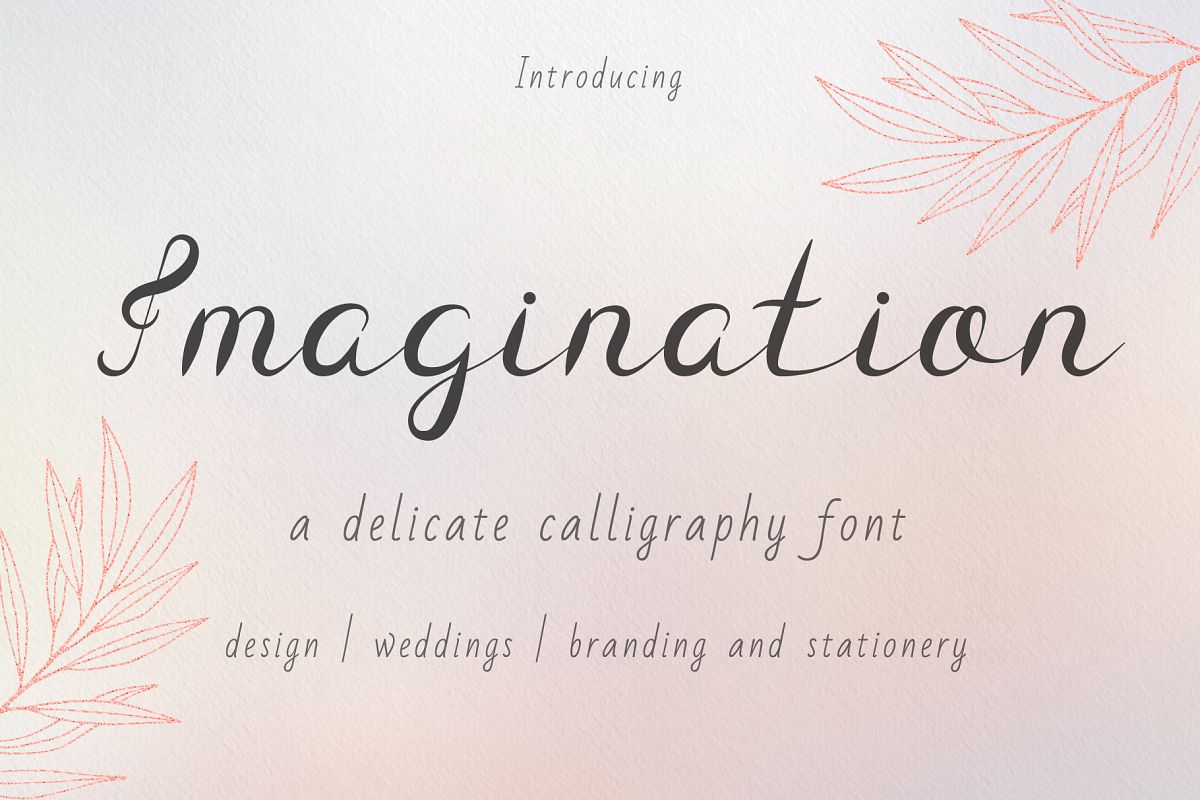
Imagination Calligraphy Font
Imagination-Regular
Dear friends, I am pleased to present you Imagination - a new delicate calligraphy font for your design. This font is great for creating your wedding stationery, branding, websites, logos, packaging, and any other paperies and projects.